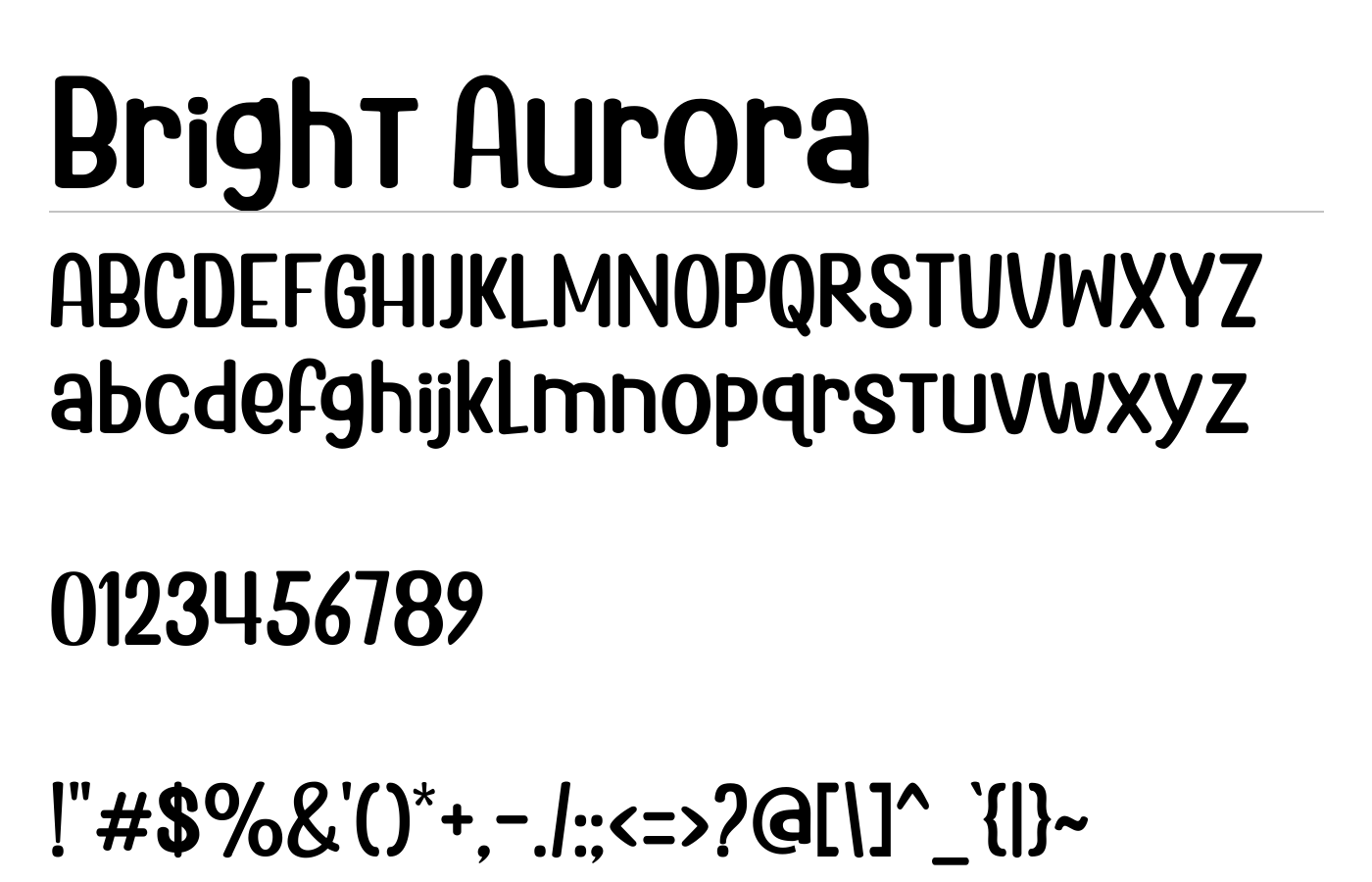
Bright Aurora is a playful and modern sans serif font with rounded edges and a slightly narrow width, giving it a friendly and approachable vibe. Its unique, quirky letterforms with subtle irregularities make it great for creative projects, branding, and headlines where a casual yet distinctive style is desired. This font works well for invitations, children’s products, and any design needing a lively, informal touch.
Bright Aurora Font
About Bright Aurora Font
| Font family | Bright Aurora Font |
| Designer | M Akmal |